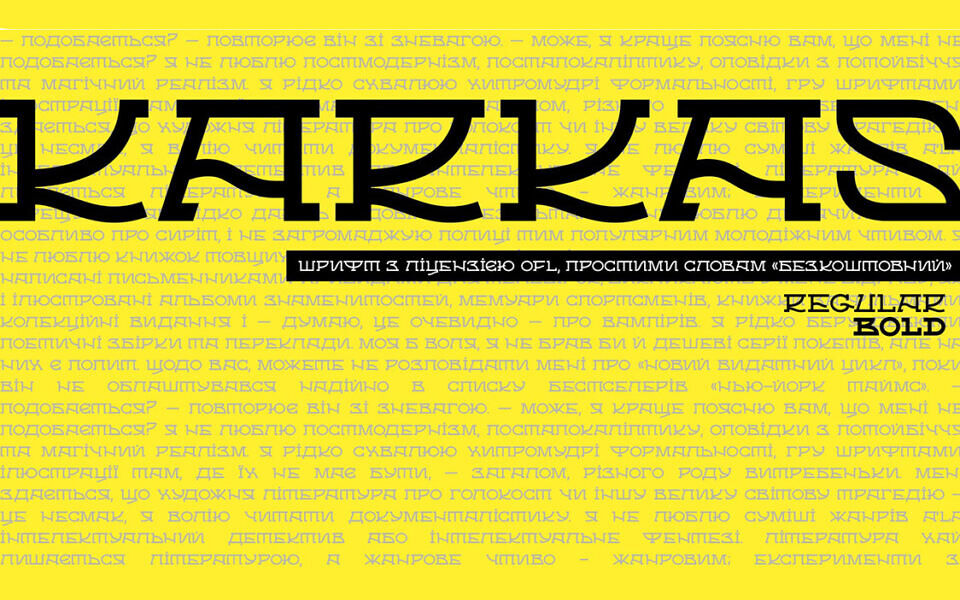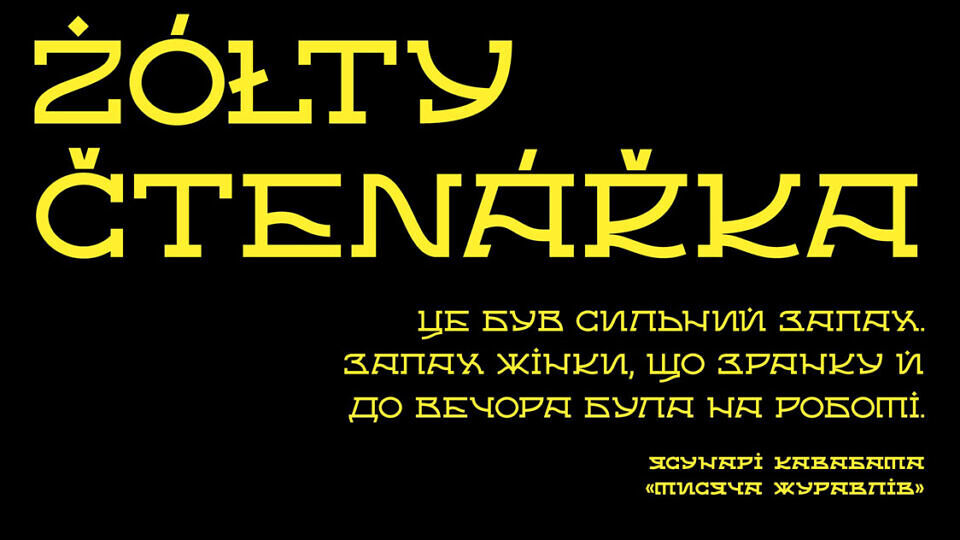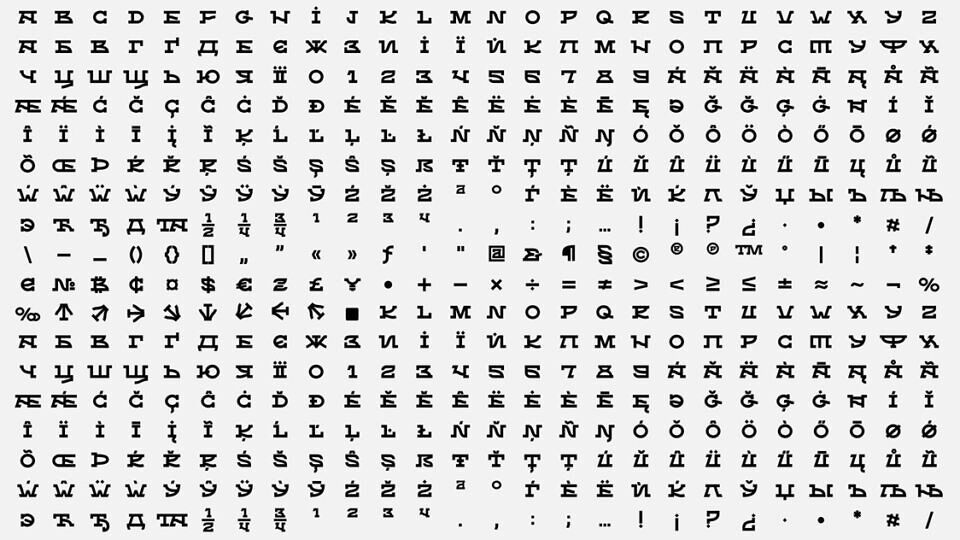
Karkas Font
Karkas is a display font, perfect for designing logos, posters, book covers, and titles in visual communications.
The unique Karkas font is OFL licensed. The letterforms are based on Ukrainian heritage. In the early 20th century, Ukrainian artist Vasyl Krychevsky created a poster for the film Taras Tryasylo, using monoline serif letters for the title. It’s hatching inspired the creation of a multilingual font for Latin and Cyrillic.
Designed by: Anna Kovalenko